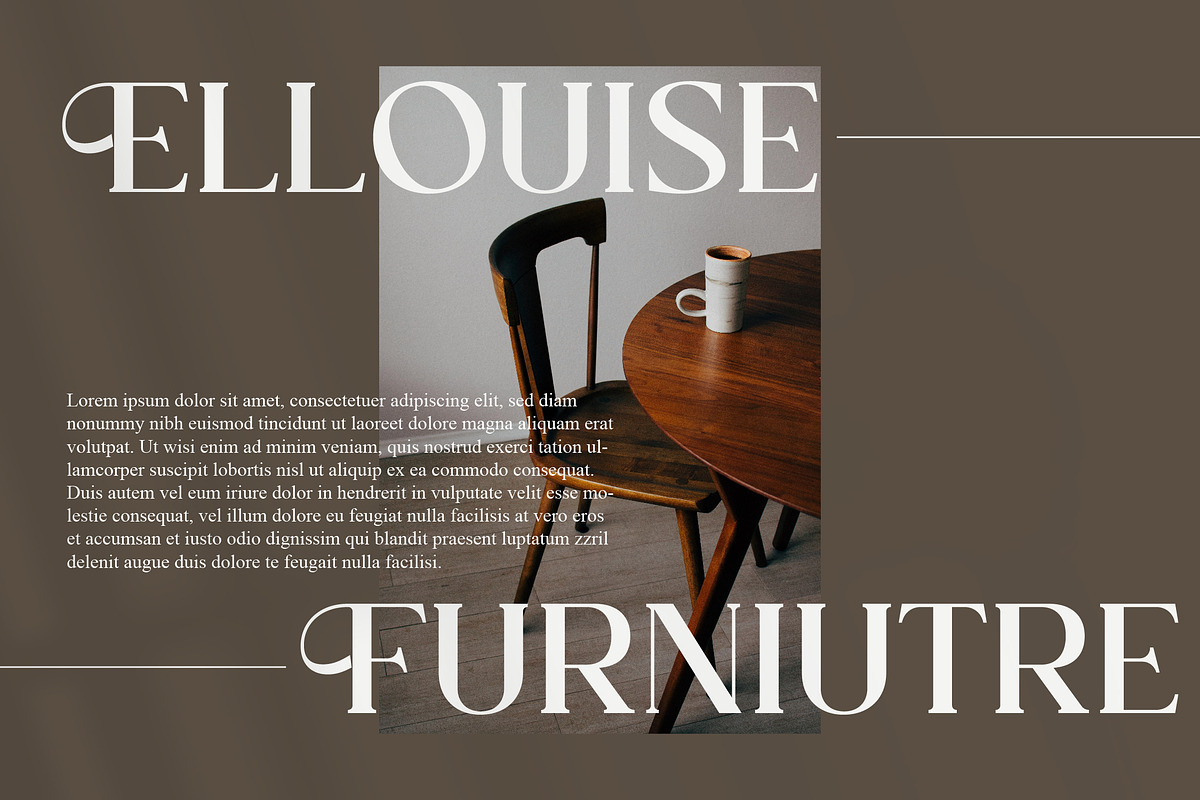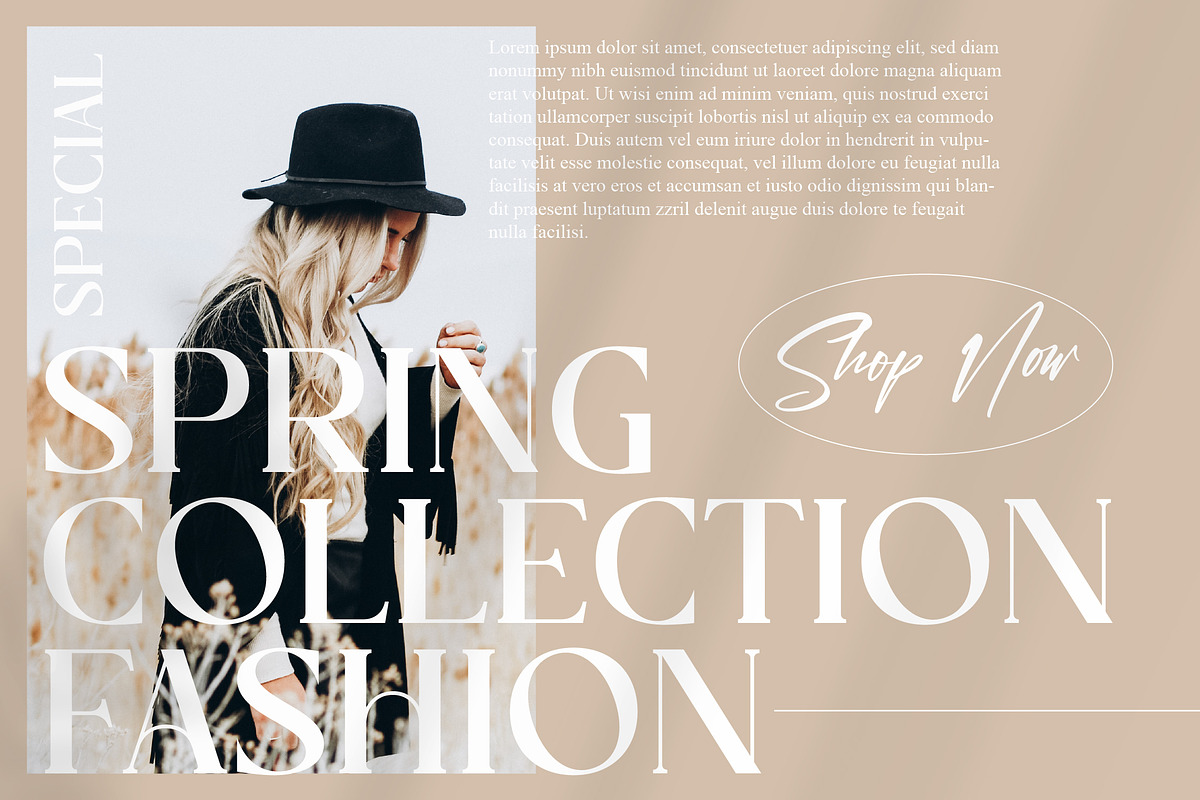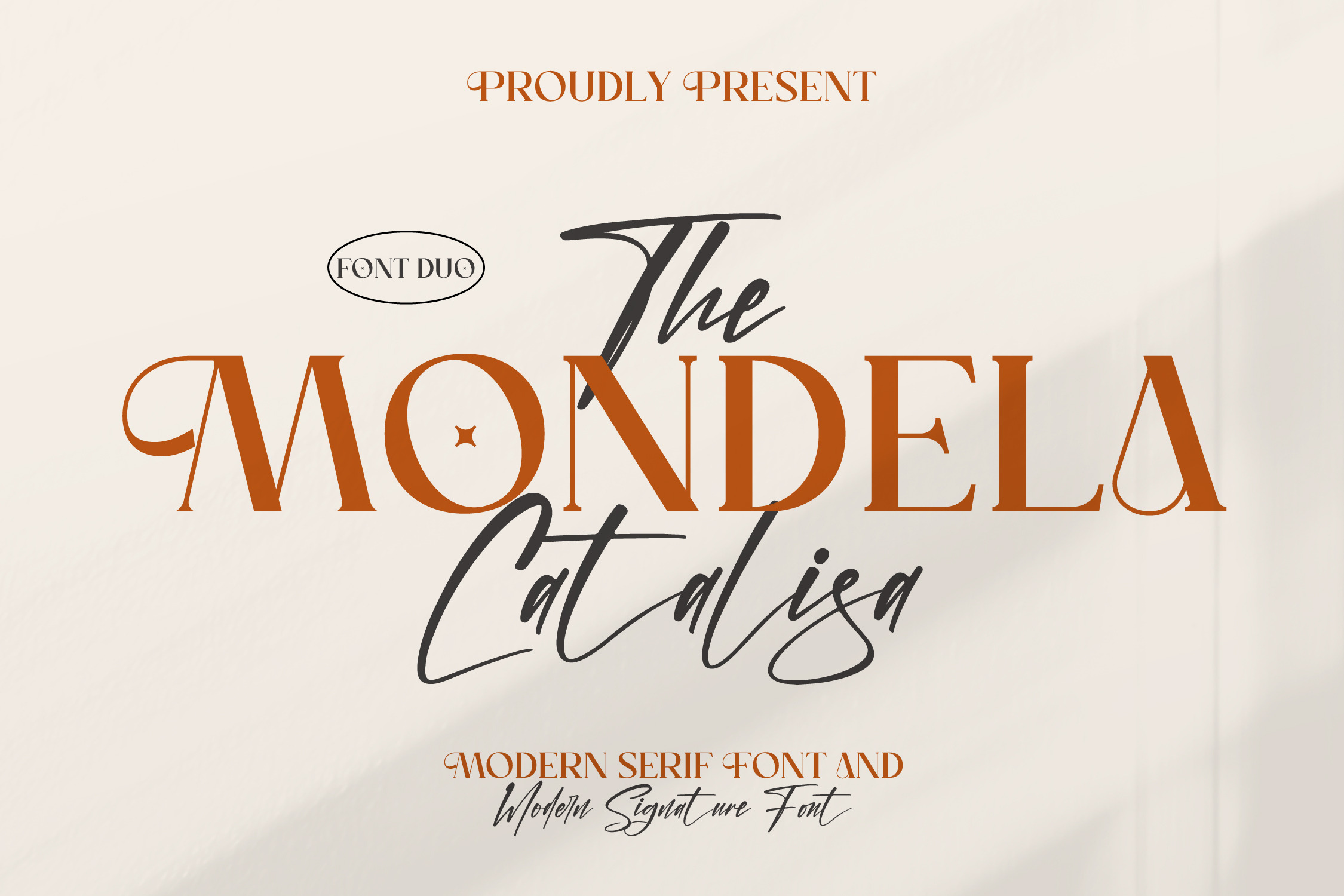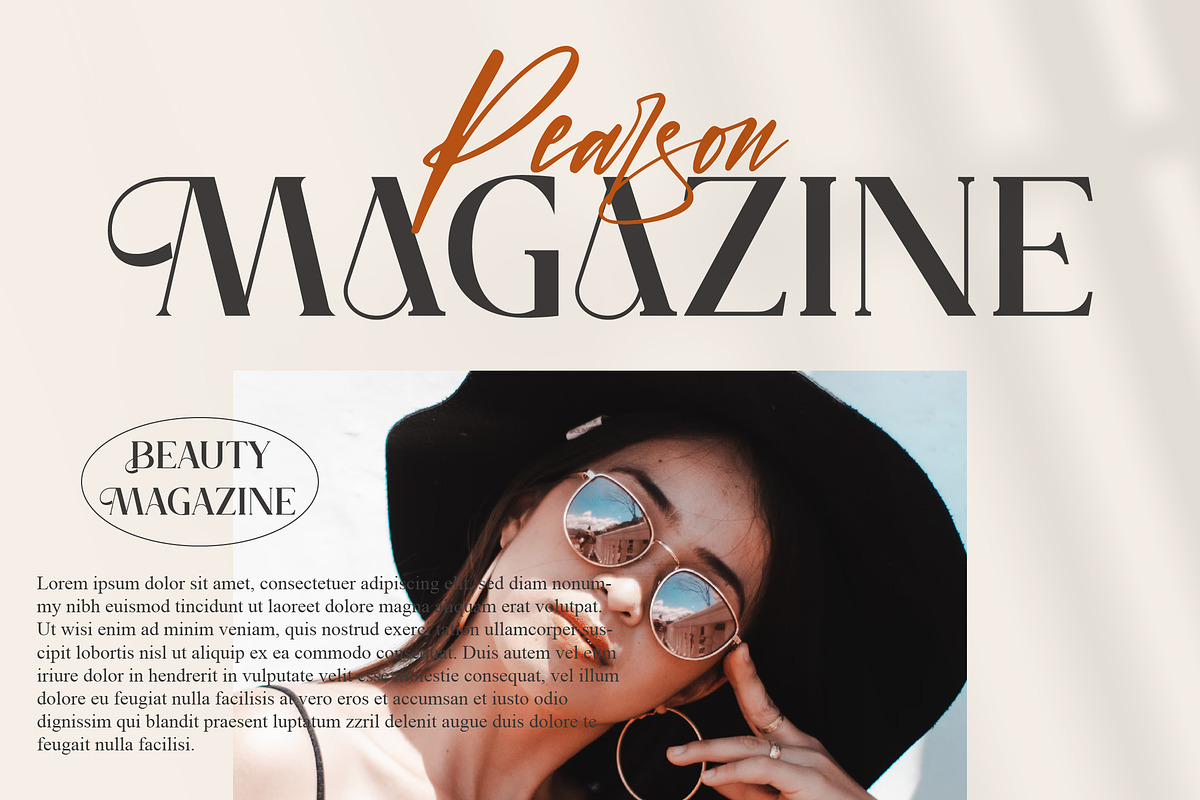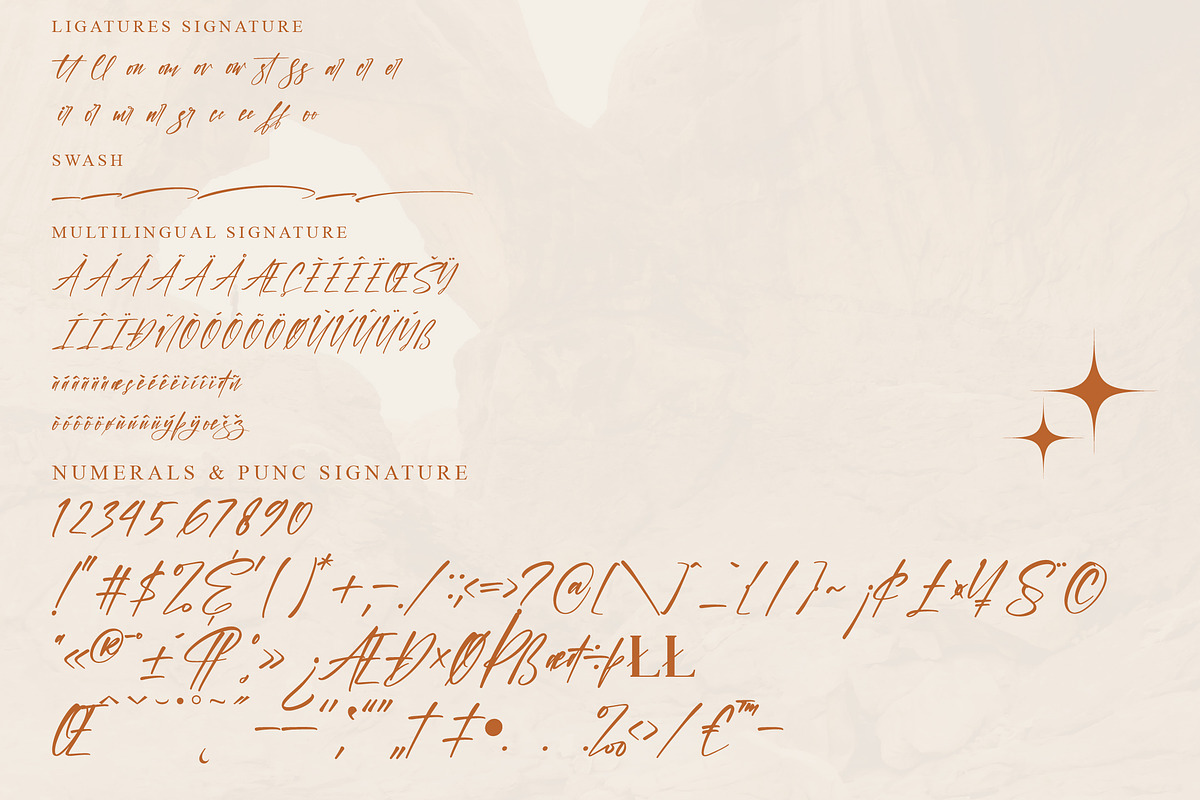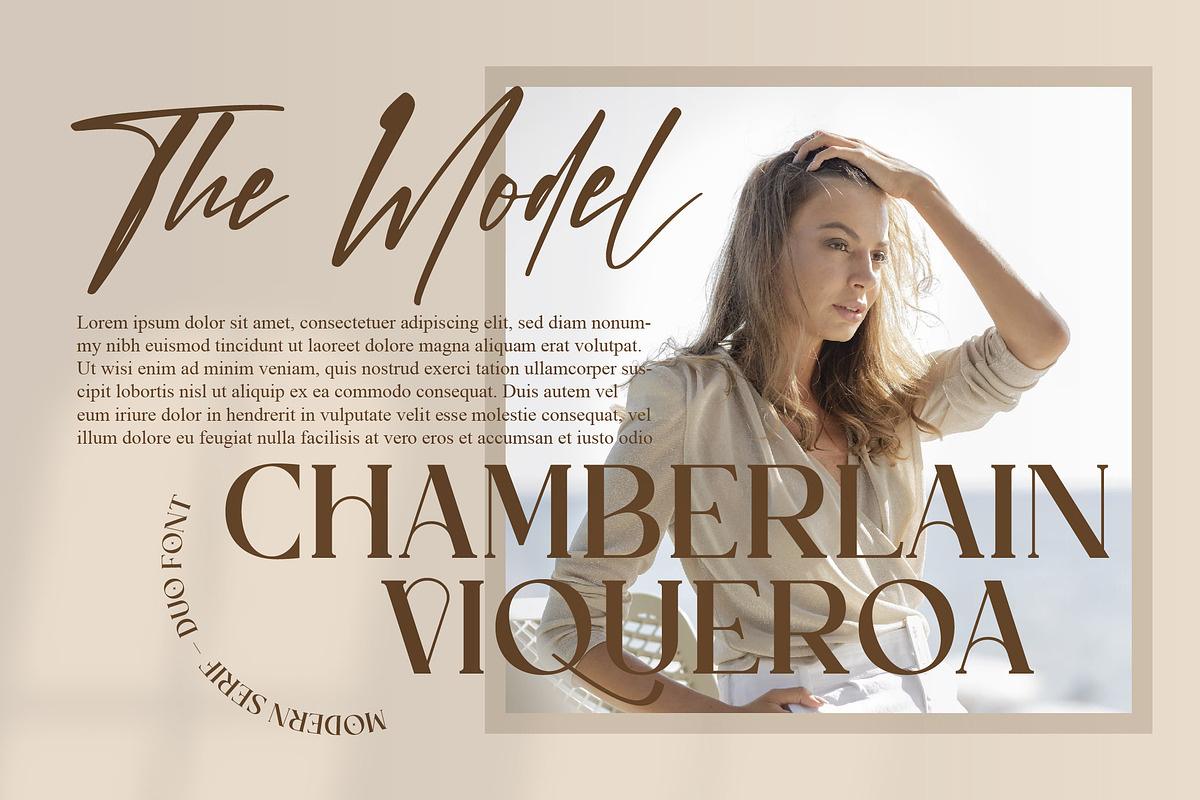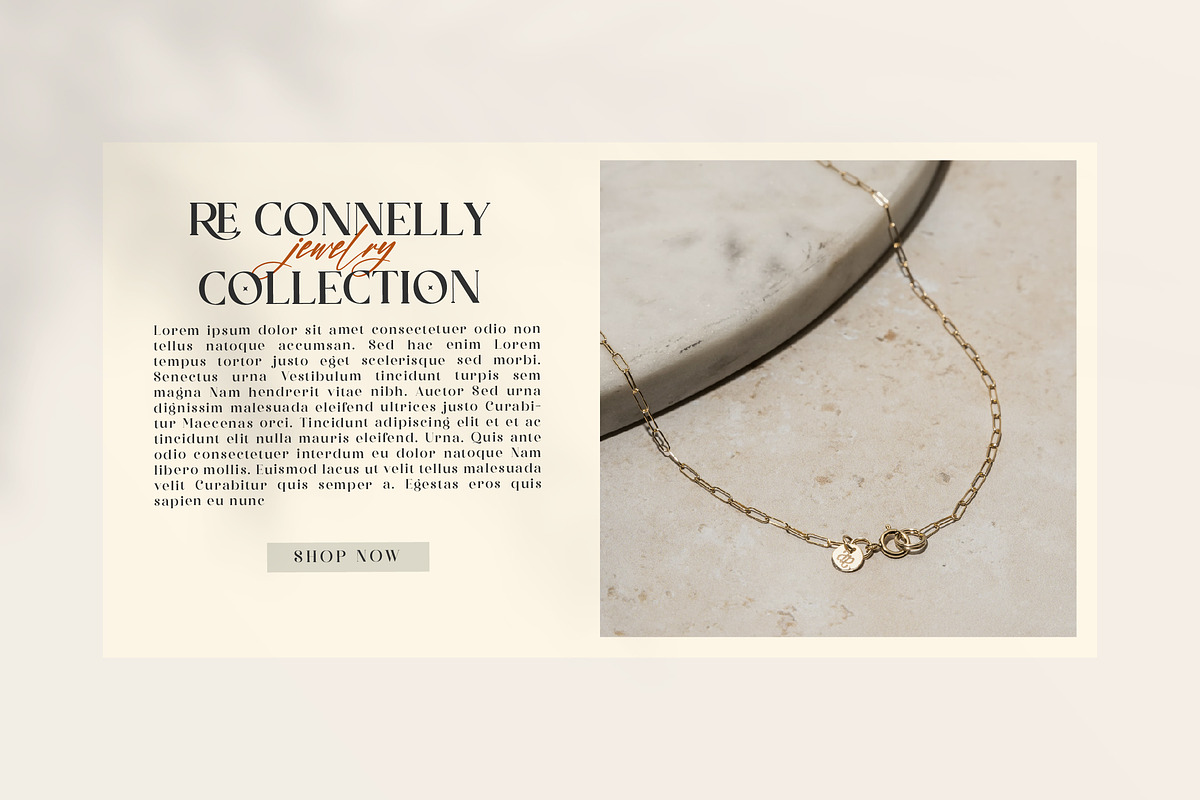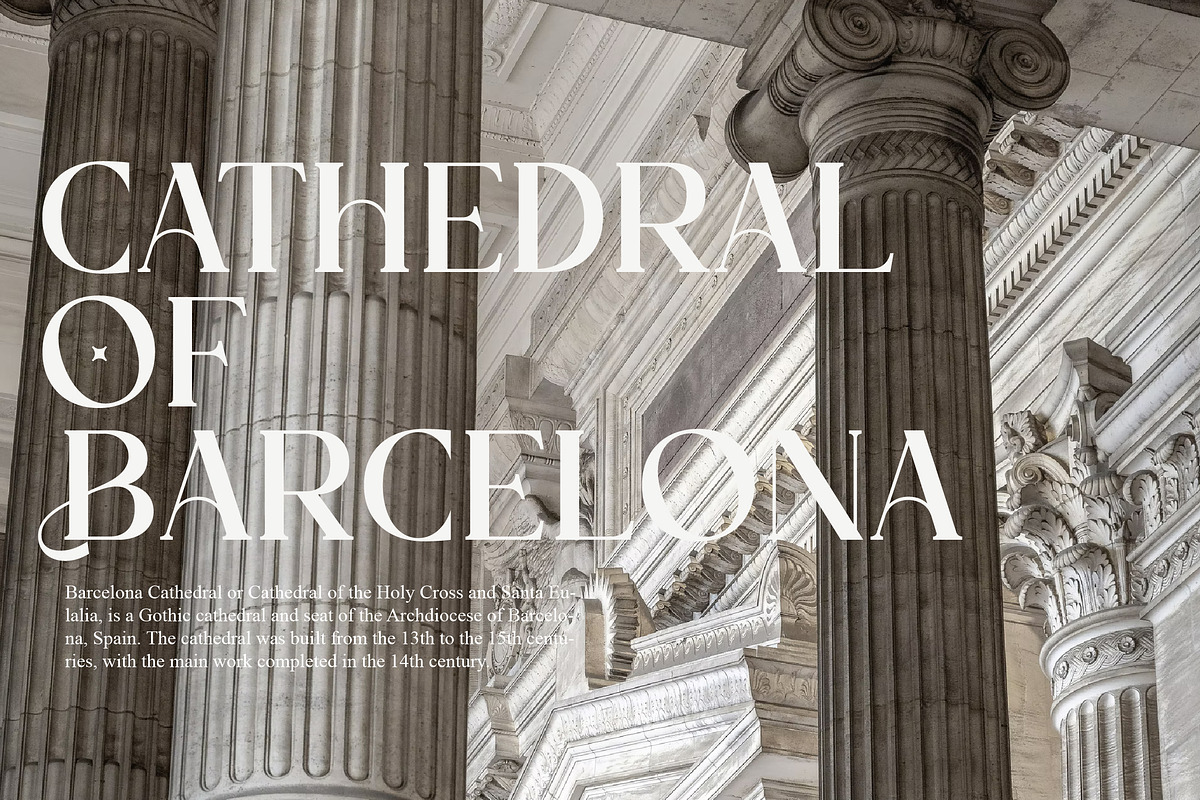
The Mondela Catalisa Font Duo
Proudly present The Mondela Catalisa Typeface Font Duo, created by Storytype, A serif modern and classic typeface that has own unique style & modern look. This typeface is perfect for an elegant & luxury logo, book or movie title design, fashion brand, magazine, clothes, lettering, quotes, and so much more.